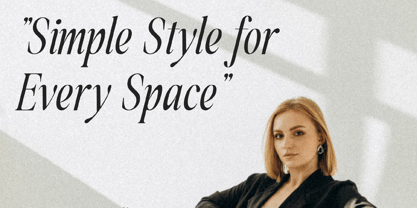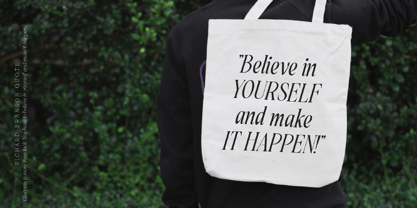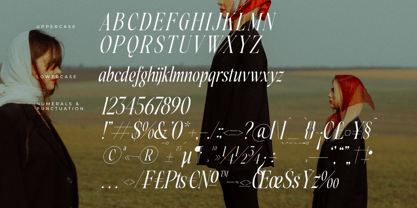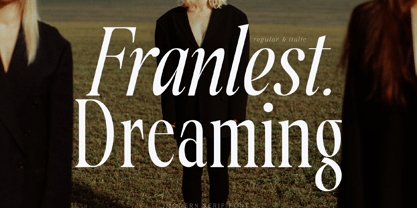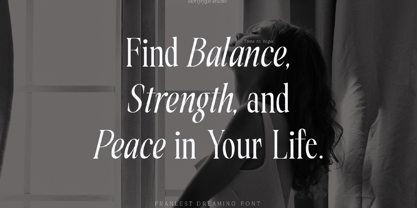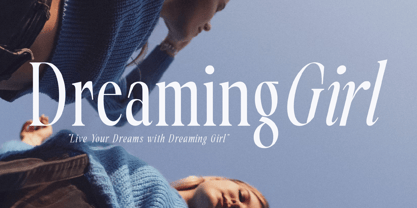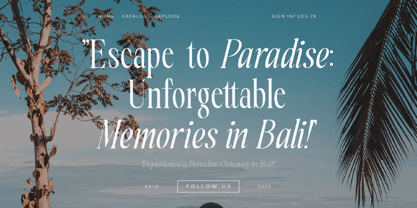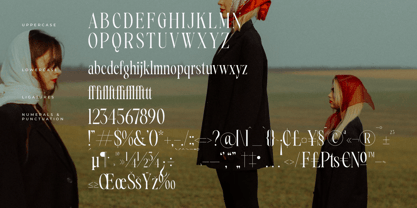
Franlest
The Franlest Font Family was designed by Heru Utama Putra and published by Letterena Studios. Franlest contains 2 styles and family package options.
Franlest Dreaming is a serif modern and classic typeface that its own unique style & modern look.
This typeface is perfect for an elegant & luxury logo, book or movie title design, fashion brand, magazine, clothes, lettering, quotes, and so much more.